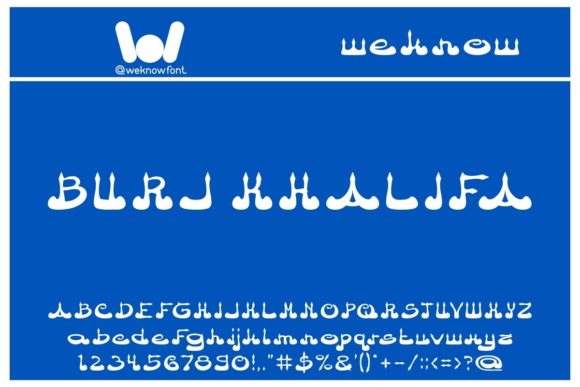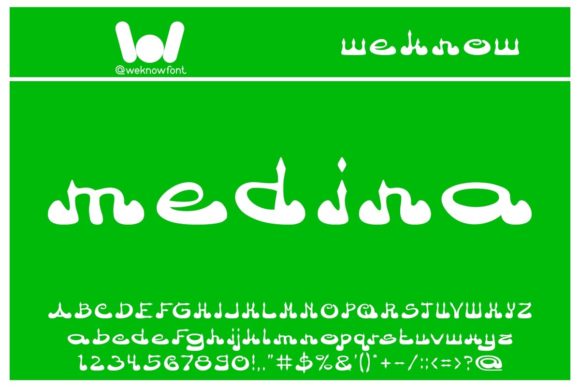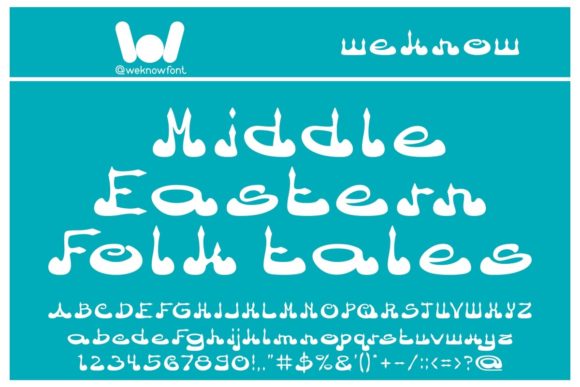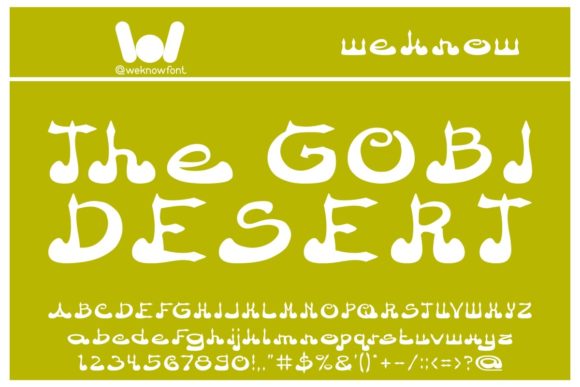
Arabian Prince Font: The Royal Treatment for Your Designs
In the world of typography, fonts play a crucial role in making or breaking a design. A perfect font can elevate your project from ordinary to extraordinary. If you’re on the hunt for a trendy and cool-looking display font, look no further than the Arabian Prince Font. This stunning font is perfect for a variety of design projects, including product packaging, branding, magazine covers, social media, weddings, and more.
The Regal Charm of Arabian Prince Font
Arabian Prince Font boasts a unique and captivating style that exudes luxury and sophistication. Its elegant and refined appearance makes it an ideal choice for designers and crafters looking to add a touch of royalty to their work. Whether you’re designing a logo, creating a social media post, or crafting a wedding invitation, this font is sure to make a statement.
Key Features of Arabian Prince Font
- Trendy and Cool-Looking: The Arabian Prince Font features a modern and edgy design that’s sure to grab attention.
- Display Font: This font is specifically designed for display purposes, making it perfect for headlines, titles, and short texts.
- Highly Versatile: The Arabian Prince Font can be used for a wide range of design projects, from product packaging to social media graphics.
- Elegant and Refined: The font’s elegant and refined appearance makes it suitable for luxury brands, weddings, and high-end designs.
Arabian Prince Font is a versatile font that’s perfect for designers and crafters looking to add a touch of sophistication to their work. Whether you’re a professional designer or a DIY enthusiast, this font is easy to use and can be incorporated into a variety of design projects. Here are some ideas to get you started:
- Product Packaging: Use the Arabian Prince Font to create eye-catching product labels, packaging, and branding materials.
- Branding Projects: Create a lasting impression with this font, perfect for logos, business cards, and letterheads.
- Magazine Covers: Make your magazine cover stand out with the Arabian Prince Font, ideal for titles, headings, and pull-quotes.
- Social Media Graphics: Elevate your social media presence with this font, perfect for creating engaging graphics, posts, and stories.
- Wedding Designs: Add a touch of luxury to your wedding designs, including invitations, programs, and decorations.
Tips for Using Arabian Prince Font
To get the most out of the Arabian Prince Font, here are some tips to keep in mind:
- Use it sparingly: As a display font, the Arabian Prince Font is best used sparingly to create a lasting impression.
- Pair it with other fonts: Experiment with pairing the Arabian Prince Font with other fonts to create a unique and visually appealing design.
- Adjust font size and color: Play around with font size and color to create a design that’s tailored to your project’s needs.
Arabian Prince Font is a stunning and versatile display font that’s perfect for designers and crafters looking to add a touch of luxury to their work. With its trendy and cool-looking design, this font is sure to make a statement in any design project. Whether you’re creating product packaging, branding materials, or social media graphics, the Arabian Prince Font is an excellent choice. So why wait? Give your designs the royal treatment with the Arabian Prince Font today!